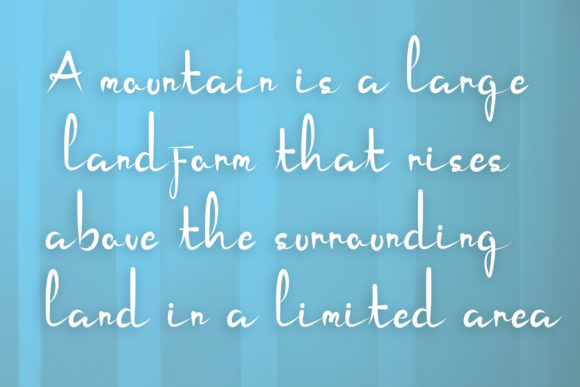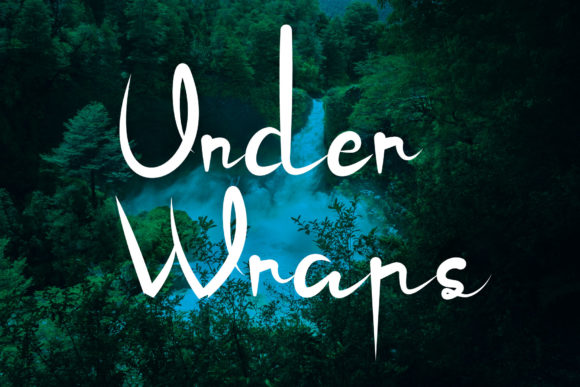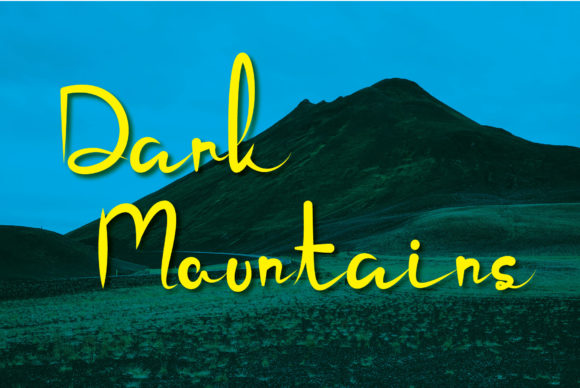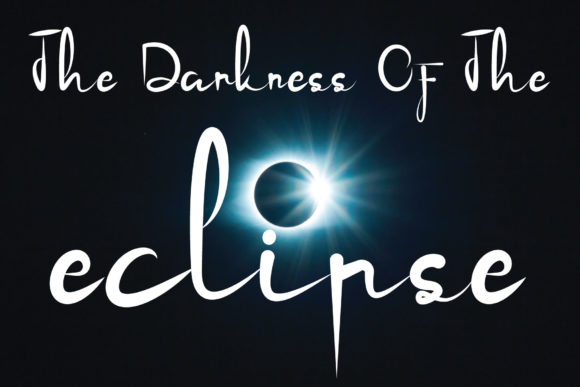
Eclipse Font: Elevate Your Designs with Elegance and Sophistication
Eclipse is a stunning script font that has been meticulously crafted to add a touch of elegance and sophistication to your projects. With its beautiful and flowing strokes, this font is perfect for designers and crafters looking to create visually appealing and professional-grade designs. In this article, we’ll delve into the world of Eclipse Font, exploring its features, benefits, and uses, as well as provide tips on how to make the most of this versatile typeface.
The Beauty of Balance: A Key Feature of Eclipse Font
One of the standout features of Eclipse Font is its expertly balanced design. Not too thin and not too thick, this font boasts a harmonious blend of thick and thin strokes that create a sense of fluidity and movement. This balance makes Eclipse Font incredibly versatile, allowing it to be used in a wide range of applications, from elegant wedding invitations and sophisticated business cards to eye-catching posters and stylish blog headers.
Variety and Expressiveness: Taking Your Designs to the Next Level
Eclipse Font is more than just a beautiful script font – it’s also incredibly varied and expressive. With a range of ligatures, swashes, and alternate characters, you can add a touch of personality and whimsy to your designs, making them truly unique and captivating. Whether you’re looking to create a romantic and feminine feel or a bold and dramatic statement, Eclipse Font provides the perfect tools to bring your vision to life.
Designed to Enhance Your Projects
Eclipse Font was specifically designed to enhance the beauty of your projects, and it’s clear that the creators have succeeded in their mission. With its elegant and refined appearance, this font is sure to elevate your designs and leave a lasting impression on your audience. Whether you’re a seasoned designer or a crafty DIY enthusiast, Eclipse Font is the perfect choice for anyone looking to add a touch of sophistication and style to their work.
Eclipse Font is an incredibly versatile typeface that can be used in a wide range of applications, including:
• Business cards and corporate branding
• Posters and flyers
• Blog headers and social media graphics
• Packaging and product design
Tips for Using Eclipse Font
To get the most out of Eclipse Font, here are a few tips to keep in mind:
• Experiment with different sizes and styles to create visual interest and hierarchy
• Use ligatures and swashes to add a touch of personality and whimsy to your designs
• Pair Eclipse Font with complementary fonts to create a unique and eye-catching combination
• Don’t be afraid to get creative and try new things – Eclipse Font is designed to be versatile and expressive!
Eclipse Font is a truly exceptional script font that is sure to elevate your designs and add a touch of elegance and sophistication to your projects. With its beautiful and flowing strokes, expertly balanced design, and varied and expressive features, this font is perfect for designers and crafters looking to create visually appealing and professional-grade designs. Whether you’re working on a wedding invitation, business card, or social media graphic, Eclipse Font is the perfect choice for anyone looking to make a lasting impression.